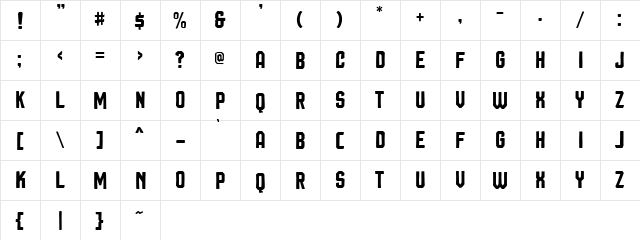
Squiborn DEMO Regular Font Preview
Squiborn DEMO Regular
Squiborn DEMO Regular Font Details
| Foundry | Letterhend Studio |
| Designer | Umar Al-Farouq |
Design Context for Squiborn DEMO Typeface
Squiborn DEMO takes a measured approach to typography — its balanced proportions and neutral character make it a reliable workhorse for both digital and print work.